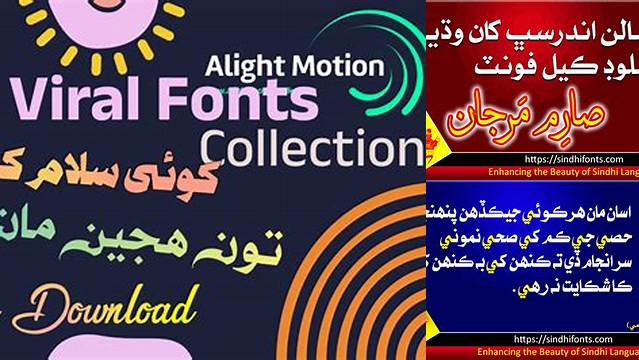
Sindhi Fonts For Alight Motion: A How-To Guide
Hey guys! Are you looking to add a unique touch to your Alight Motion projects with some beautiful Sindhi fonts? Well, you've come to the right place! In this article, we're going to dive deep into the world of Sindhi fonts and how you can use them to create stunning visuals in Alight Motion. We'll cover everything from finding the best fonts to installing them and using them effectively in your projects. So, buckle up and let's get started!
Why Use Sindhi Fonts in Alight Motion?
In today's digital world, Sindhi fonts play a crucial role in preserving and promoting the Sindhi language and culture. Using these fonts in your Alight Motion projects allows you to connect with a specific audience and add a personal touch to your work. Alight Motion is a powerful motion graphics and video editing app that allows you to create professional-quality animations, visual effects, and more. By incorporating Sindhi fonts, you can create designs that are not only visually appealing but also culturally relevant. Imagine creating a beautiful intro for a Sindhi song or designing a social media post for a Sindhi cultural event – the possibilities are endless!
Expressing Cultural Identity
The Sindhi language has a rich history and cultural significance, and fonts are a powerful tool to express this identity. Using Sindhi fonts in your designs is a way of celebrating and preserving this heritage. The unique calligraphic style of Sindhi script can add a touch of elegance and authenticity to your projects. Whether you're creating content for a Sindhi audience or simply want to add an exotic flair to your designs, Sindhi fonts are an excellent choice. They help bridge the gap between tradition and modernity, allowing you to showcase your cultural roots in a contemporary setting.
Adding a Unique Aesthetic
Beyond cultural significance, Sindhi fonts offer a unique aesthetic that can make your designs stand out. The flowing curves and intricate details of the script can add a touch of sophistication and visual interest to your projects. If you're looking to create designs that are different from the mainstream, using Sindhi fonts is a great way to achieve that. They can be used in a variety of contexts, from elegant invitations to bold posters, adding a distinctive flair that captures attention.
Connecting with a Specific Audience
For content creators targeting a Sindhi-speaking audience, using Sindhi fonts is essential. It shows that you understand and respect their language and culture, which can help you build a stronger connection with your viewers. When your audience sees content in their native script, they feel more engaged and valued. This can lead to increased viewership, higher engagement rates, and a more loyal following. So, if you're serious about reaching the Sindhi community, incorporating Sindhi fonts into your Alight Motion projects is a must.
Where to Find Sindhi Fonts
When browsing these websites, make sure to preview the fonts before downloading them. Look for fonts that are legible, visually appealing, and suitable for your project. Pay attention to the font license as well – some fonts may be free for personal use but require a commercial license for business projects.
Online Font Repositories
In addition to dedicated font websites, you can also find Sindhi fonts in online font repositories. These repositories are like libraries of fonts, offering a diverse range of options to choose from. Websites like Dafont and Fontspace are popular choices, with a vast collection of free fonts contributed by designers from around the world. While these repositories can be a treasure trove of unique fonts, it's essential to exercise caution and check the font licenses carefully. Some fonts may have restrictions on their usage, so make sure you're complying with the terms before using them in your projects.
Custom Font Designers
If you're looking for something truly unique, consider hiring a custom font designer to create a Sindhi font specifically for your project. This can be a more expensive option, but it ensures that you get a font that perfectly matches your brand and design aesthetic. Working with a designer also allows you to have input on the font's characteristics, ensuring it meets your exact needs. Platforms like Behance and Dribbble are great places to find talented font designers who specialize in various scripts, including Sindhi.
So, guys, that's it! You now have a comprehensive guide to using Sindhi fonts in Alight Motion. From finding the best fonts to installing them and using them effectively in your projects, you're well-equipped to create stunning visuals that celebrate Sindhi language and culture. Remember to choose the right font for your project, ensure legibility, use contrast to your advantage, consider your audience, and balance Sindhi with other elements. With these tips in mind, you'll be creating amazing designs in no time. Happy designing!